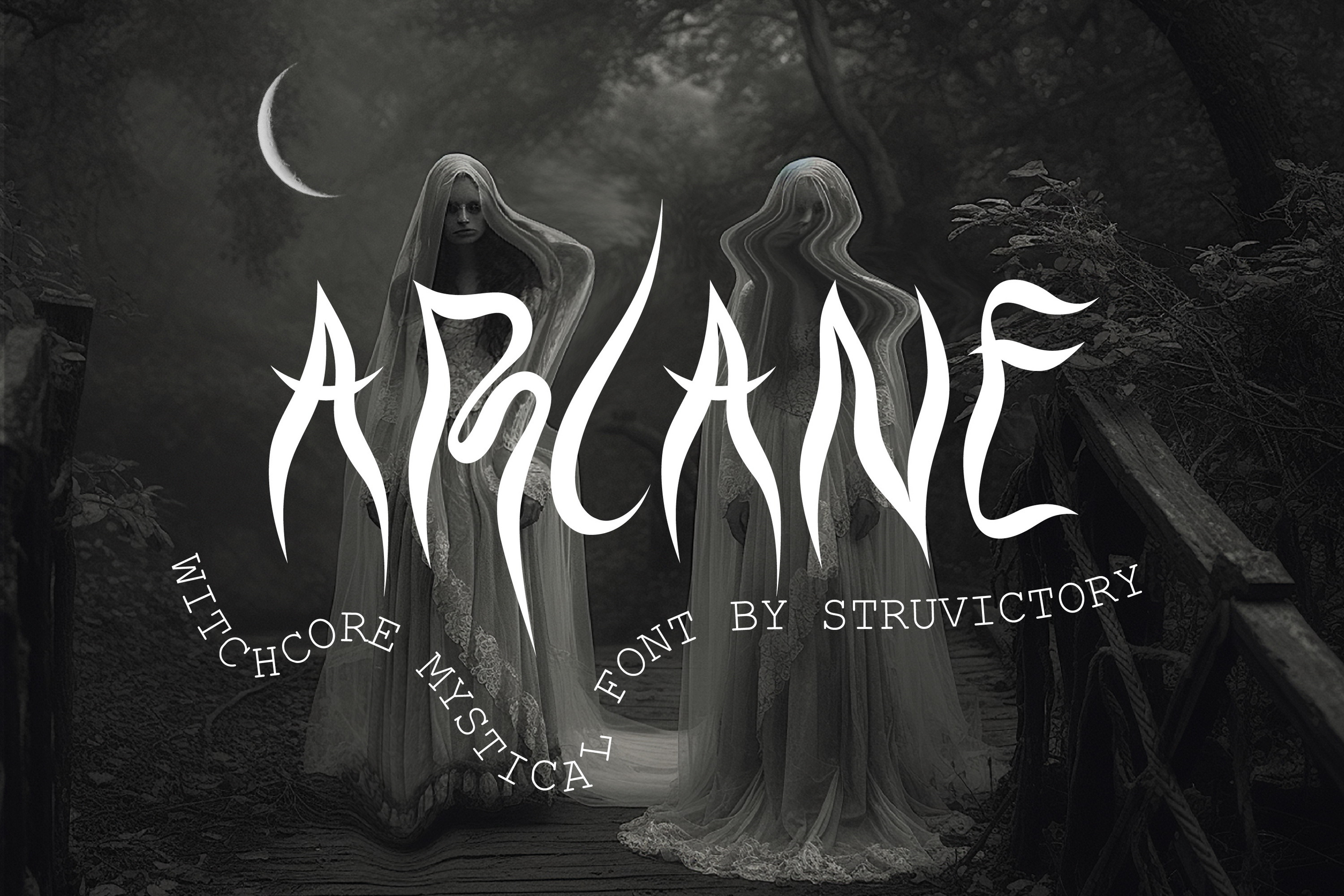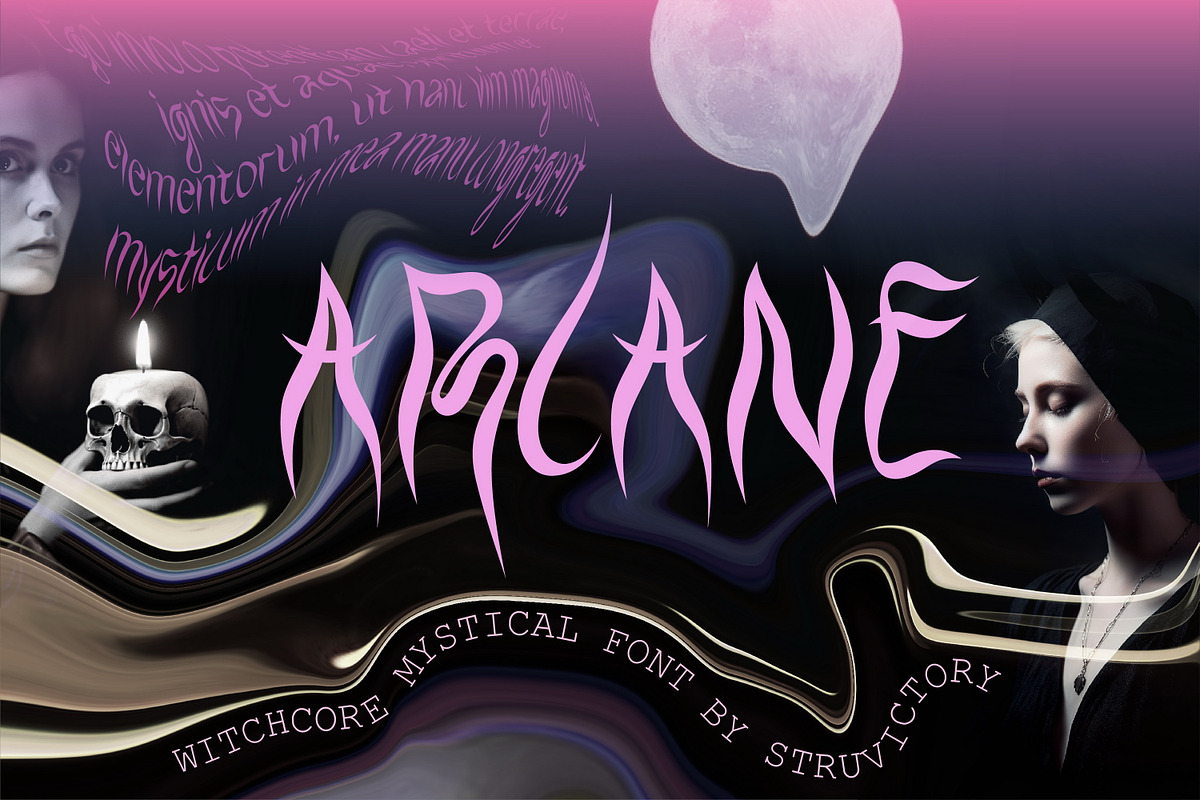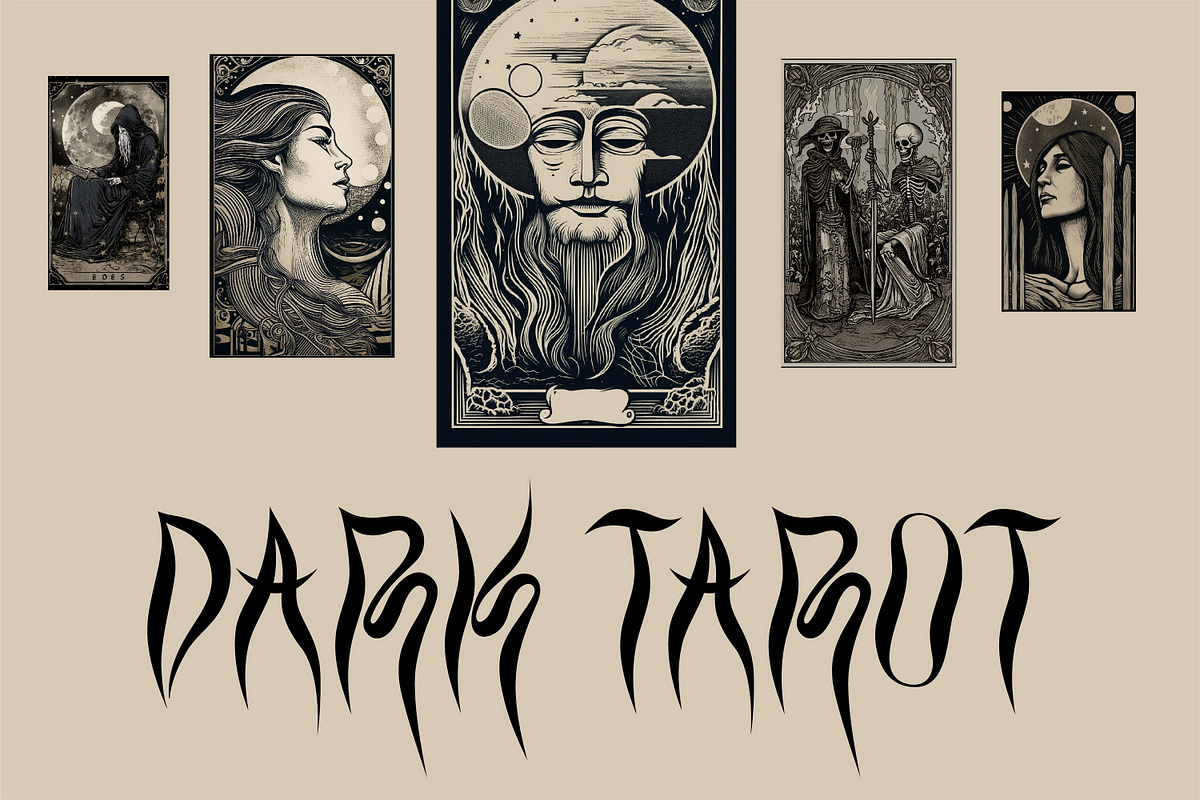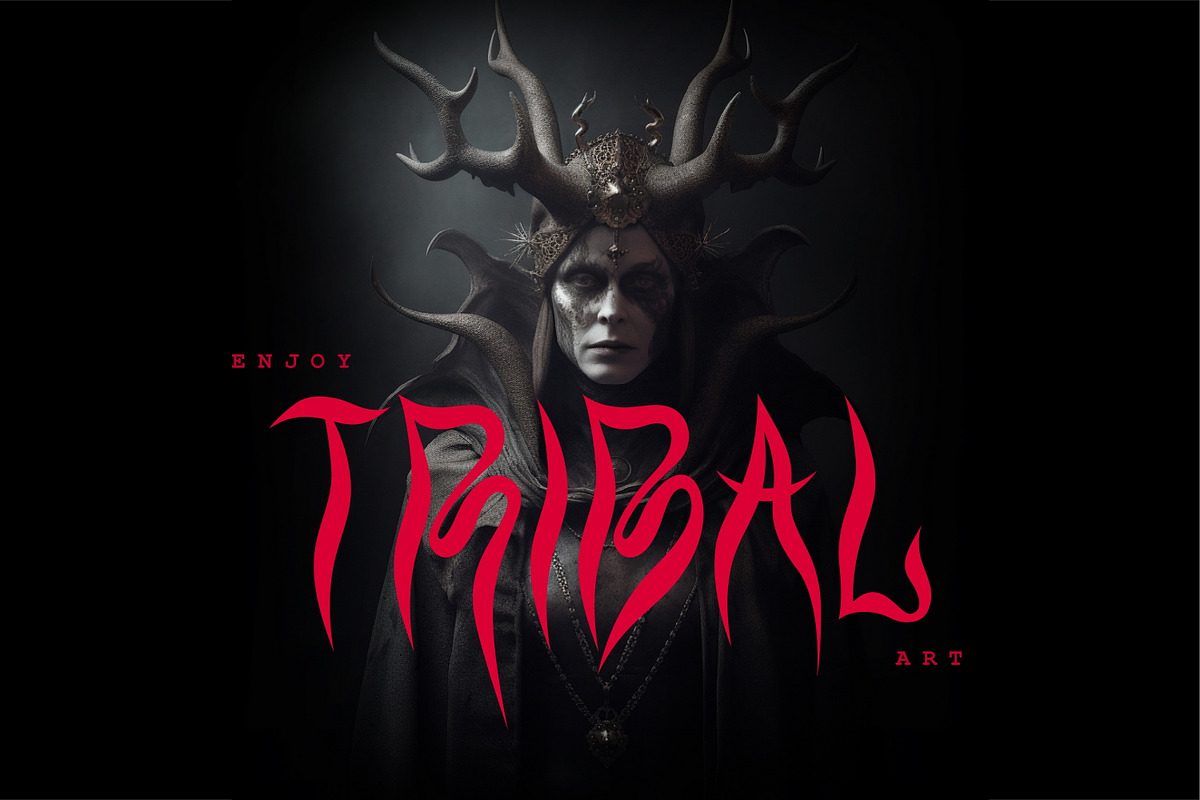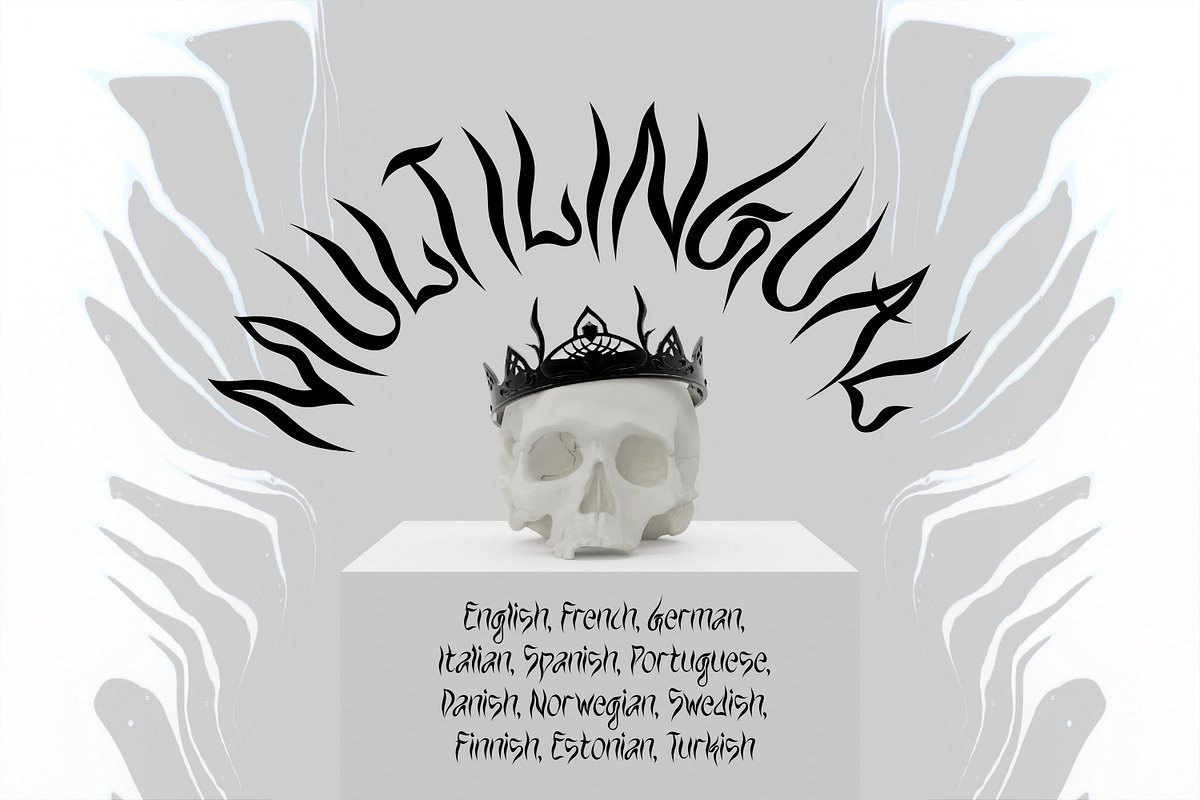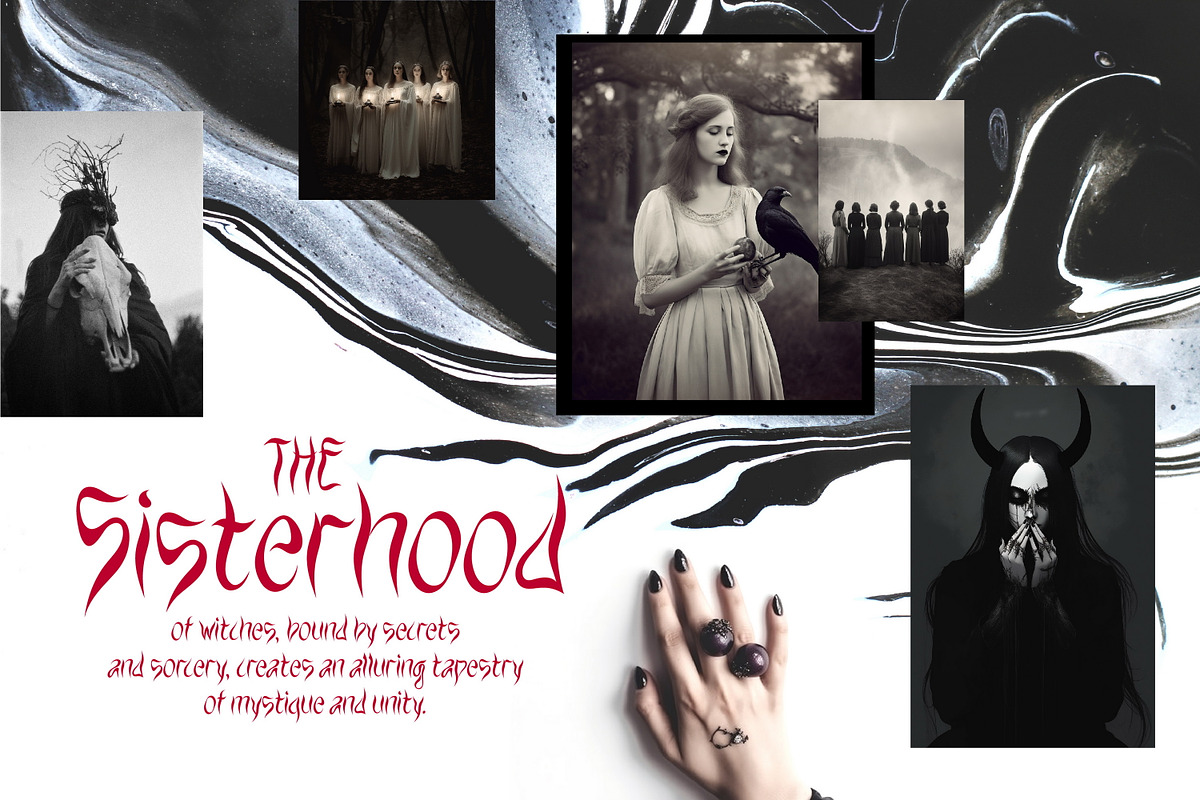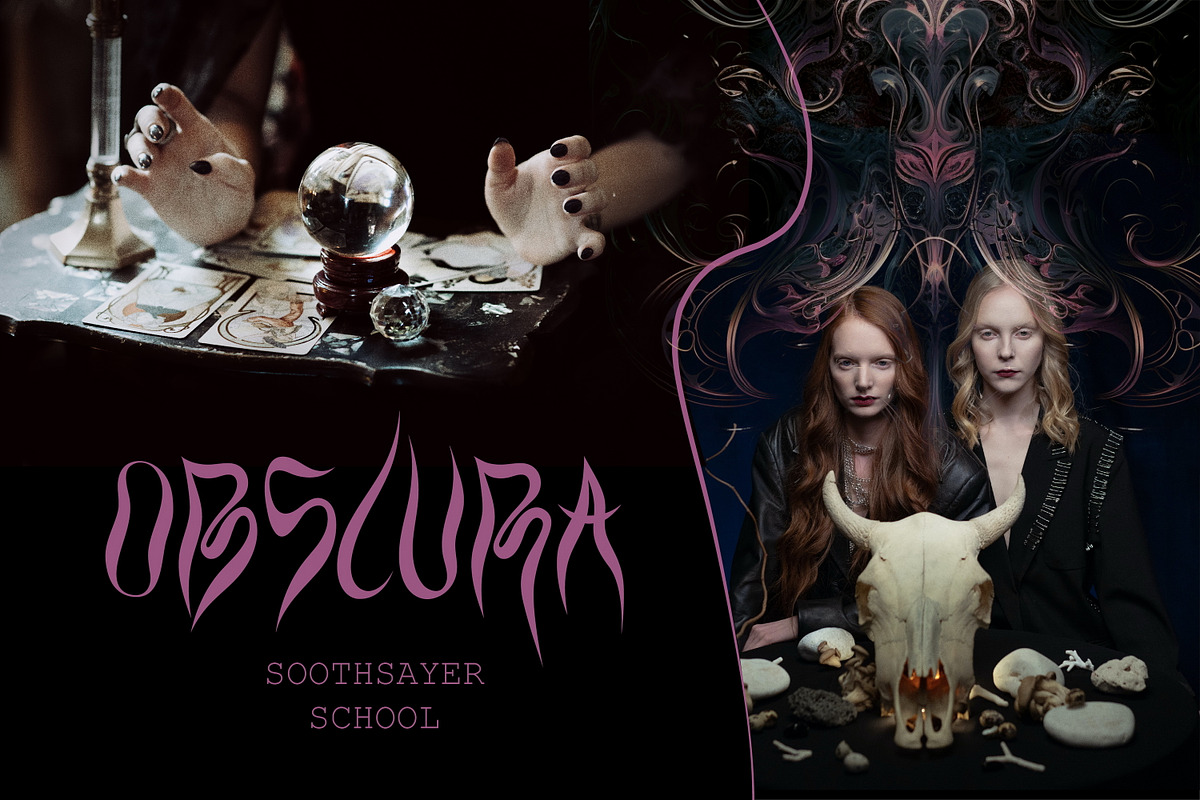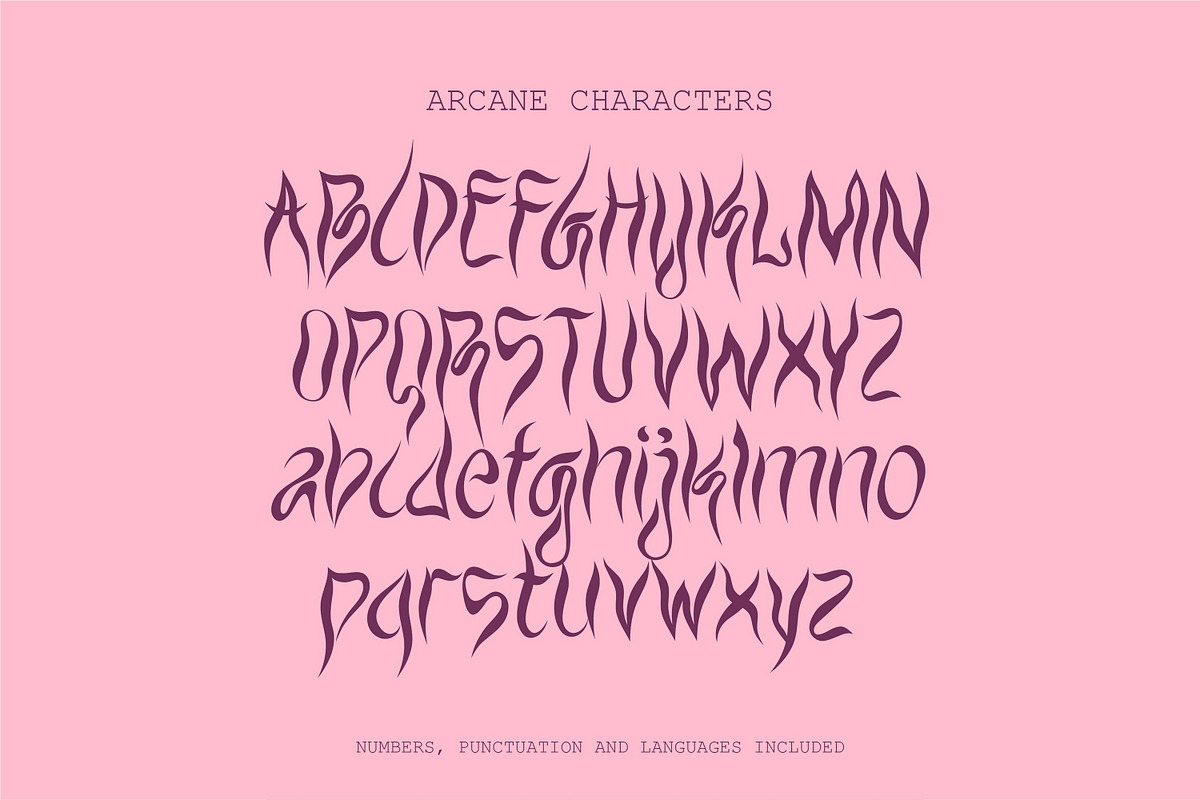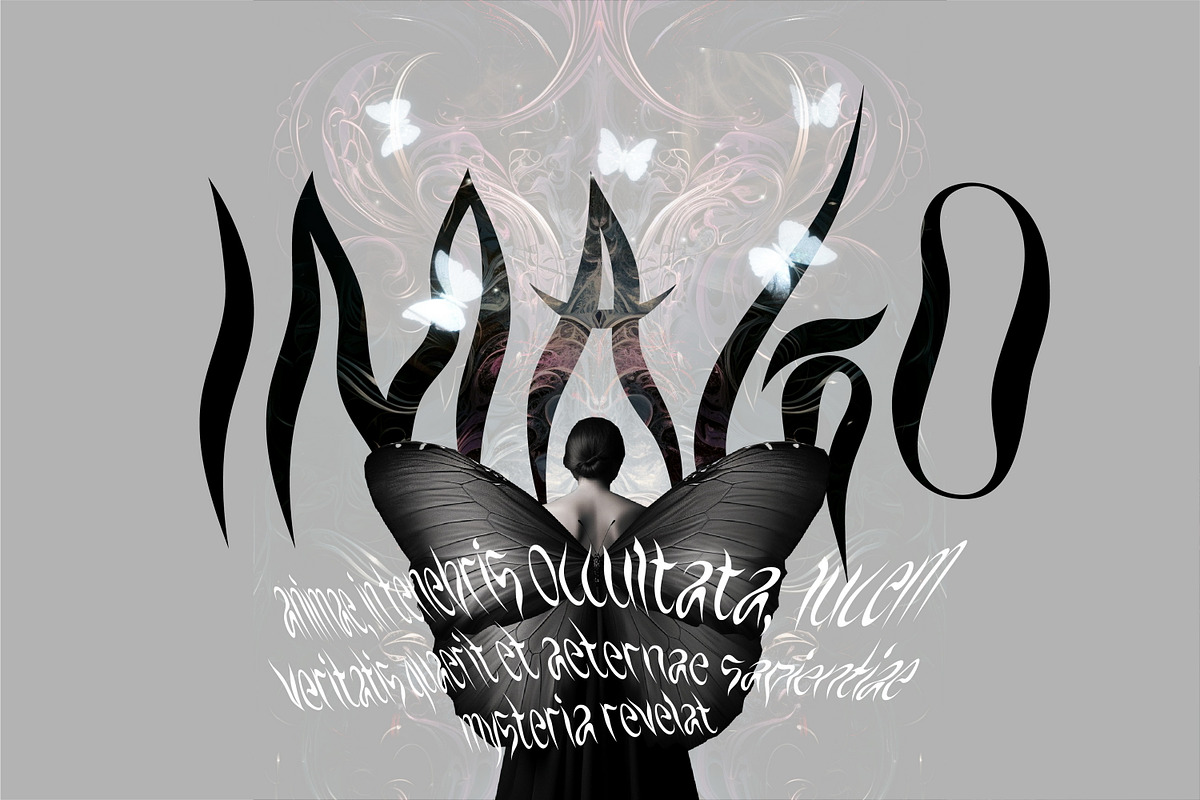
Arcane - Witchcore Mystical Font
Discover the enchanting "Arcane" font, imbued with the mystique of witchcraft and ancient spells. This bewitching font will add a touch of magic to your projects, making it perfect for crafting spellbinding design or a unique brand identity. Embrace the allure of the "Arcane" font and delve into a world of witchy wonders.